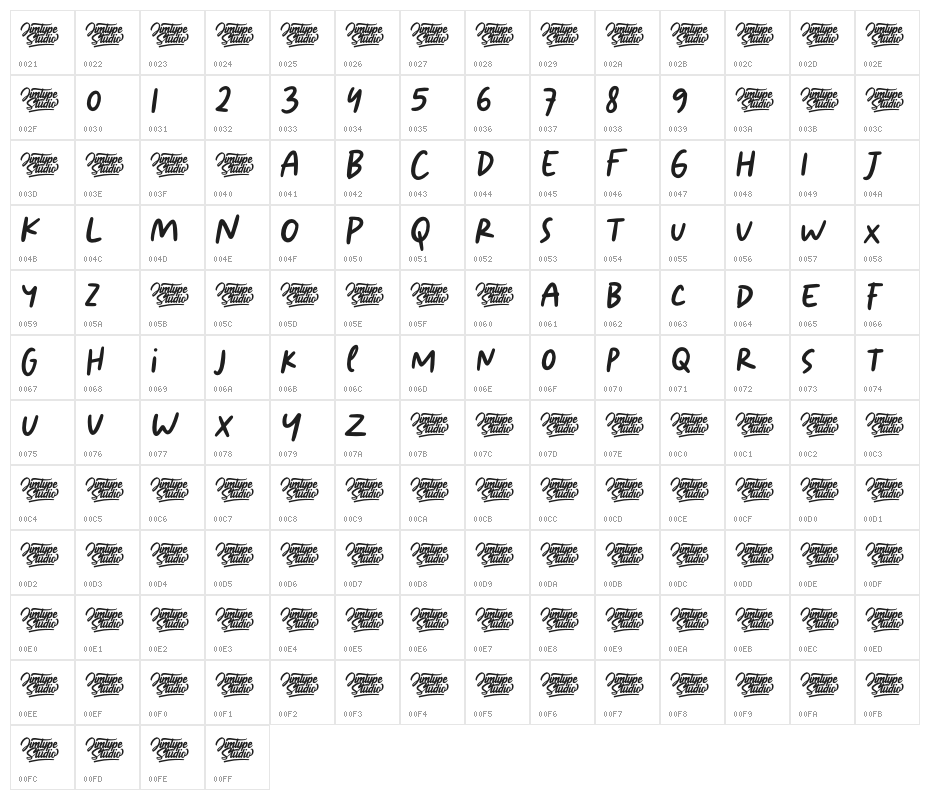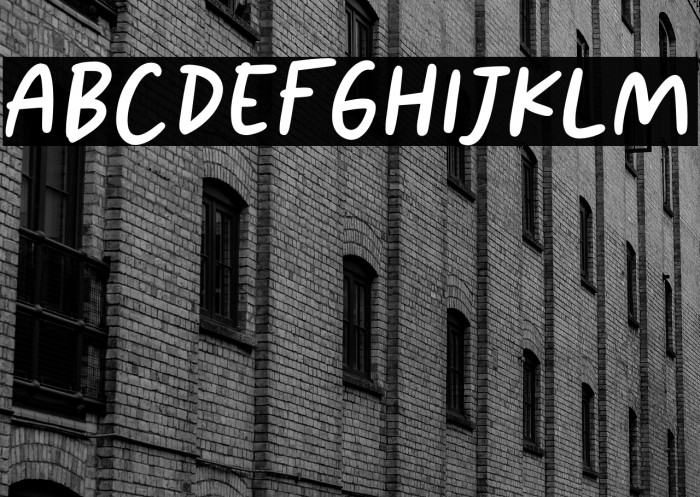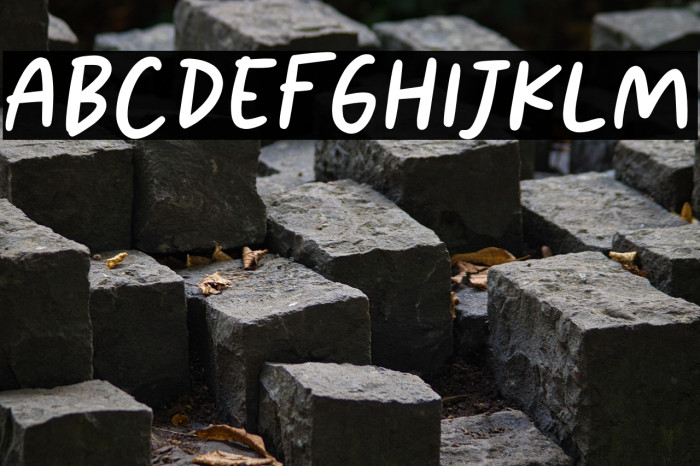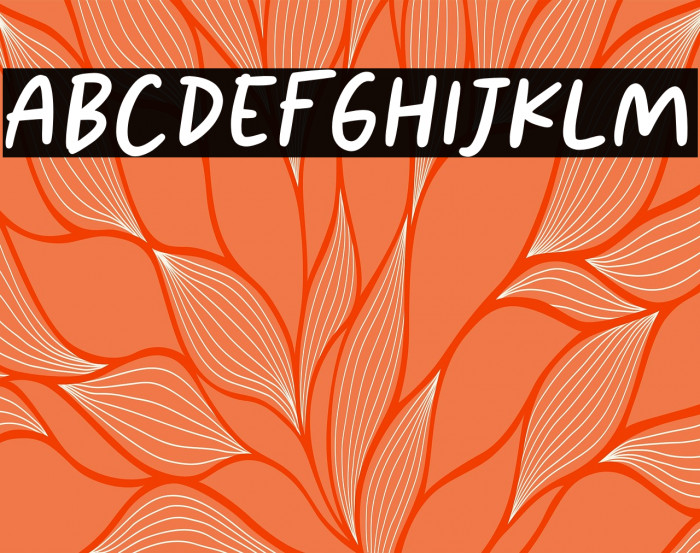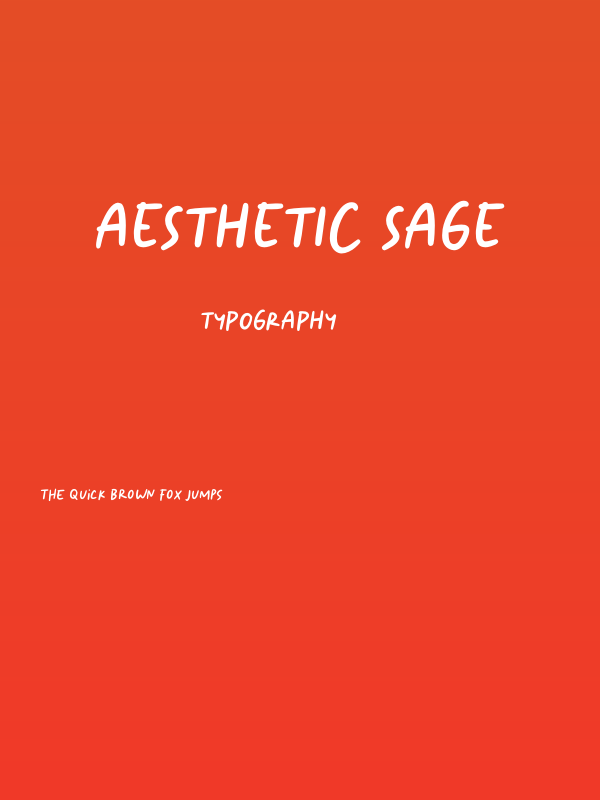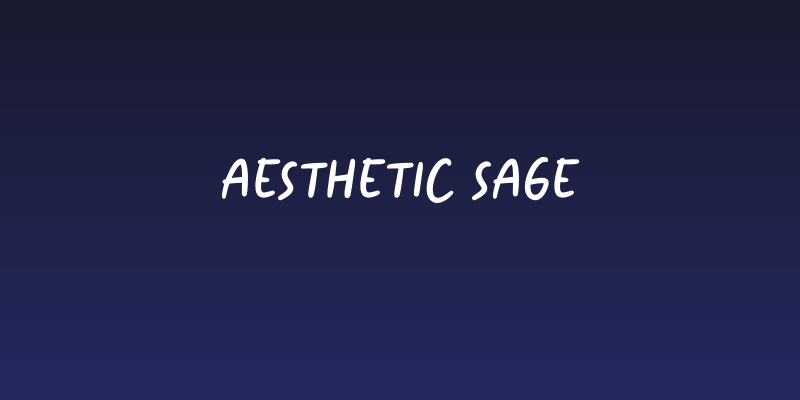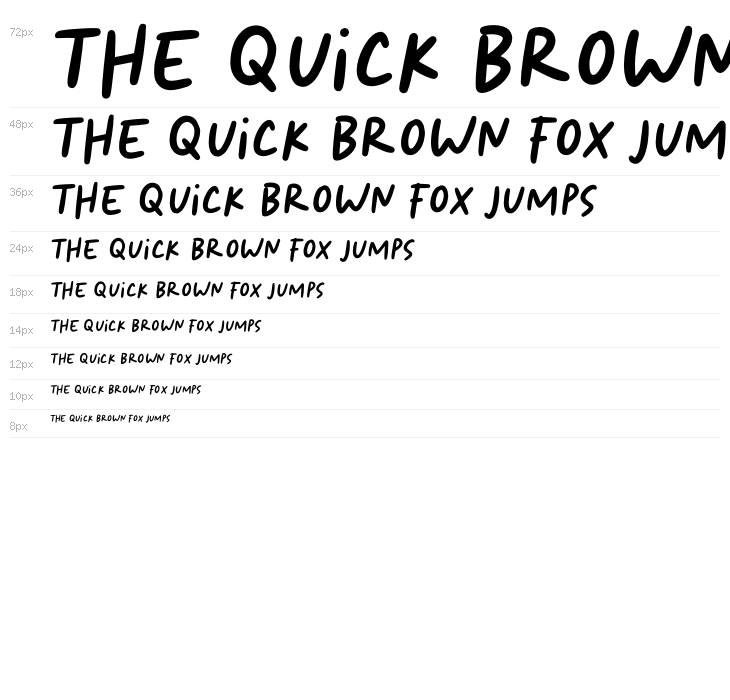
Aesthetic Sage Font
Aesthetic Sage Description
This font features a casual, handwritten style with smooth, flowing lines and a slightly playful character. The letters are rounded and have a consistent stroke width, giving it a friendly and approachable appearance. The uppercase and lowercase letters maintain a uniform height, contributing to a cohesive look. The numerals are clear and easy to read, matching the overall style of the alphabet. This font's informal yet legible design makes it suitable for a variety of creative projects.
| Use Case | Logos, Invitations, Social Media |
| Proposed Projects | Ideal for greeting cards, invitations, personal branding, and social media graphics. |